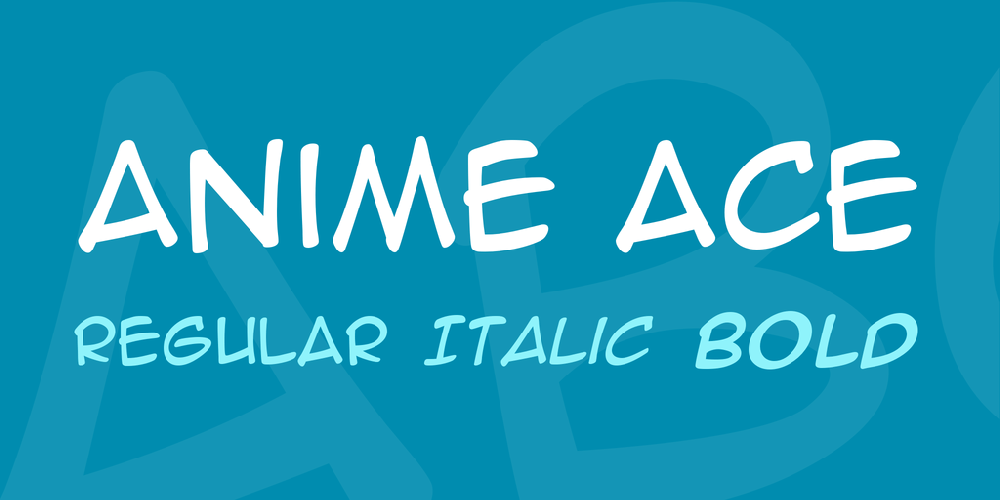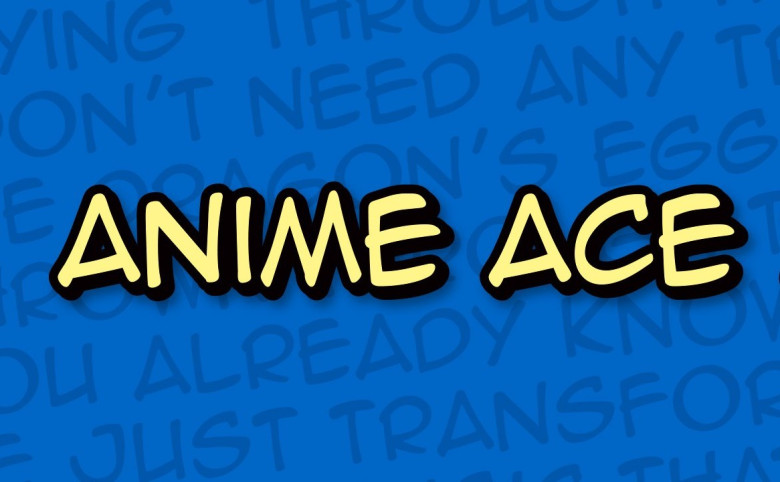
It’s perfect for a variety of creative comic design projects so that your designs will appear attractive & natural in the eyes of onlookers. Anyway, which fonts do you use and do you have any free fonts. Anime ace is a bold type font that may be used on any platform, including pcs, macs, linux, ios, and android.
Blambot Comic Fonts Has Designed Anime Ace, Free Font For Personal Use That Is Inspired By Anime.
It Is Part Of Blambot’s Dialogue Collection And Designed For Use As The Main Fonts For Your Character’s Speach Balloons!
Anime Ace Font Is A Comic, Handwritten Fancy Typeface With A Clean, Simple Aesthetic Quality That’s Ideal For Children’s Books, And Anything Else That’s Designed To Appeal To Youngsters!